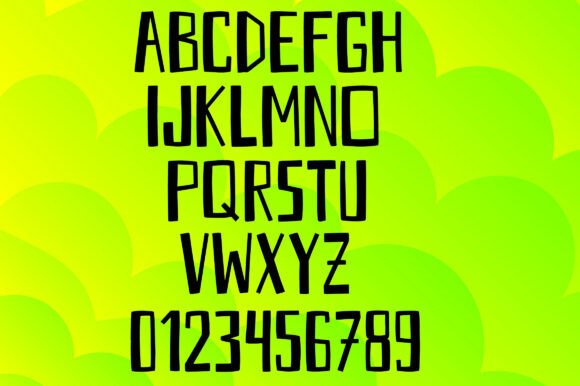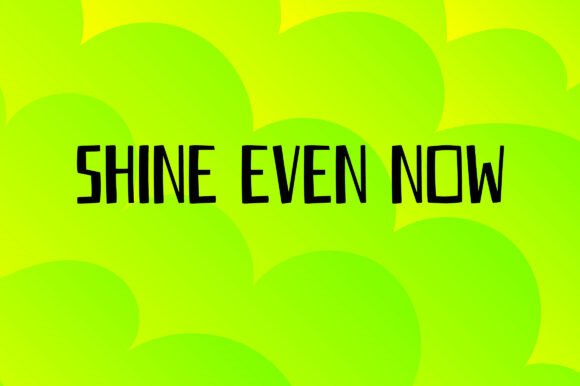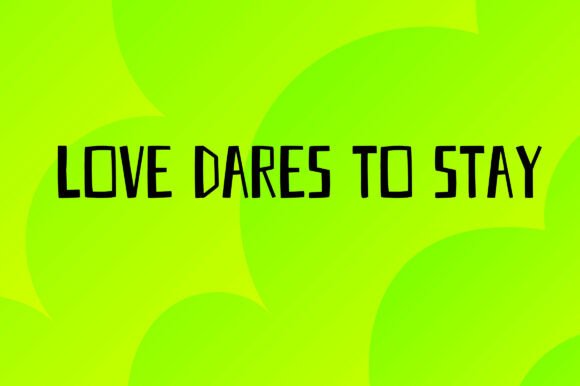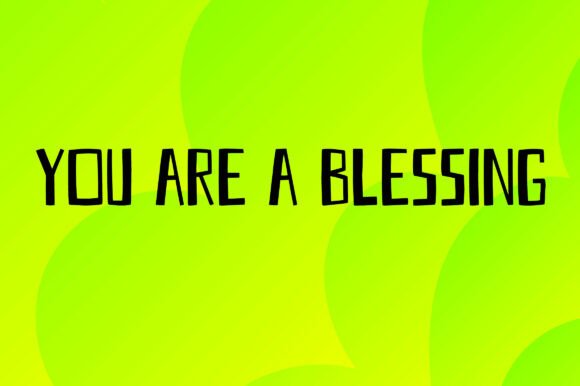
The FINLEY Font: A Bold and Modern Display Font for Creative Projects
Have you ever been working on a design project, pouring your heart and soul into it, only to get stuck on one thing: finding the perfect font? I know I have. It’s like trying to find the missing piece of a puzzle. Recently, I was working on a branding project for a client who wanted a bold, modern, and eye-catching font. That’s when I stumbled upon the FINLEY font, and it completely transformed my design.
A Personal Review of FINLEY
As a designer, I’m always on the lookout for fonts that can help my clients stand out. FINLEY is a bold display font with a tall condensed style and strong modern character. Here’s what I love about it:
- ✨ Clean and straight lines: FINLEY’s uppercase letterforms have a clean and minimalist look that gives any design a professional feel.
- ✅ Unique proportions: The slightly irregular proportions of FINLEY’s letters make it stand out from other bold fonts.
- ✅ Handcrafted look: FINLEY has a distinctive handcrafted look that makes every word feel confident, stylish, and eye-catching.
While FINLEY is an amazing font, it’s not perfect. Here are a few things to keep in mind:
- ⚠️ Limited character set: FINLEY only includes uppercase letters A-Z and numbers 0-9, so you’ll need to plan accordingly.
- 🤔 Legibility at small sizes: Like many bold fonts, FINLEY can be difficult to read at small sizes. Use it for headlines and titles, rather than body text.
The Story Behind FINLEY
FINLEY was designed with the modern designer in mind. Its creator wanted to craft a font that was both bold and elegant, perfect for making a statement. With its clean lines, unique proportions, and handcrafted look, FINLEY is sure to become a favorite in your design arsenal.
| What is FINLEY? | FINLEY is a bold display font with a tall condensed style and strong modern character. |
| What characters are included in FINLEY? | FINLEY includes uppercase letters A-Z and numbers 0-9. |
| Is FINLEY suitable for body text? | No, FINLEY is best used for headlines and titles. It’s not suitable for body text due to its bold and condensed style. |